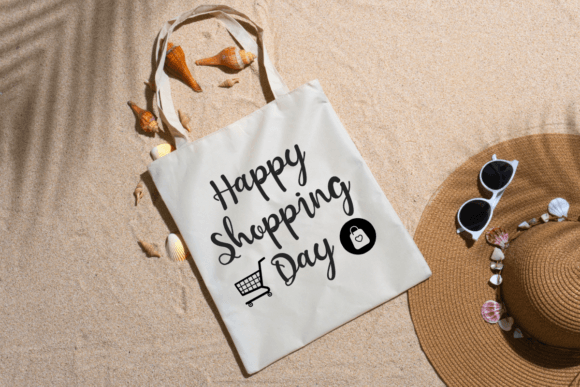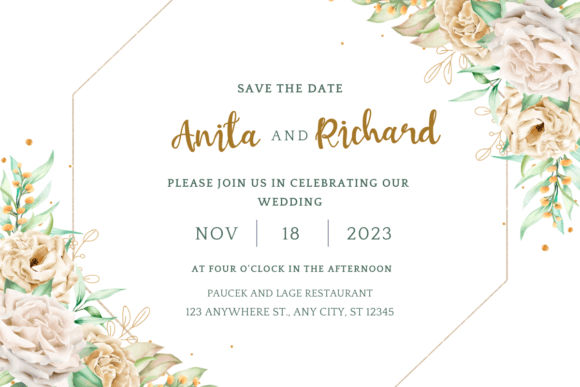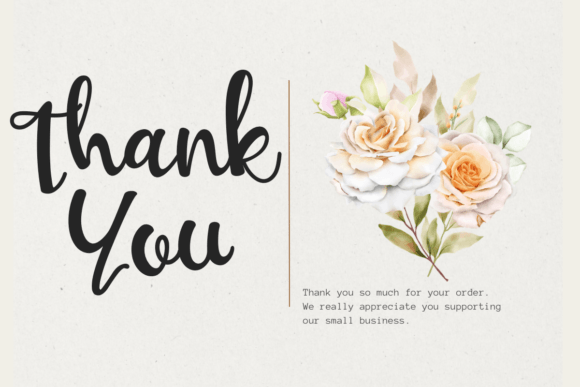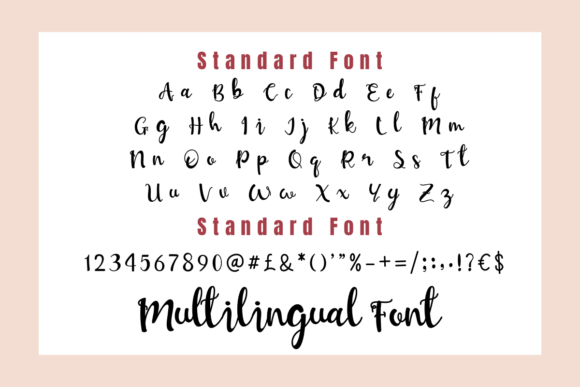
Introduction to Magic Chocolate Font
Remember the moment when you stumbled upon the perfect font for your design project? It’s that feeling of excitement and relief when everything comes together in perfect harmony. For designers, finding the right font can make all the difference between a good design and a great one. And, we’re thrilled to introduce you to the “Magic Chocolate Font”, a delightful handwritten font that’s sure to add a touch of magic to your creative projects.
This charming font is designed to capture the essence of creativity and imagination, making it an ideal choice for designers who want to bring excitement and personality to their work. Whether you’re creating invitations, greeting cards, or branding materials, “Magic Chocolate Font” will infuse your text with a sense of wonder and joy. And, the best part? It’s available for free download, perfect for designers on a budget or those who want to experiment with a new design resource.
With its playful strokes and organic feel, “Magic Chocolate Font” is a high-quality design resource that’s perfect for designers who want to add a personal touch to their projects. Plus, with a transparent background, you can easily use it on any design project without worrying about compatibility issues.
Key Features of Magic Chocolate Font
- Unique and creative design for various projects, including typography and graphics.
- Unique chocolate-themed design elements, such as cocoa beans and chocolate bars, add a touch of whimsy to any creative project.
Honest Review: Magic Chocolate Font
I recently stumbled upon the Magic Chocolate Font and was excited to give it a try. As a designer, I’m always on the lookout for unique and high-quality design resources to add some creativity to my projects.
What works well with the Magic Chocolate Font is its playful and whimsical feel, which makes it perfect for creative projects that require a touch of magic. The font is highly customizable, allowing me to adjust the size, color, and even add some special effects to make it stand out. The transparent background option is also a great feature, as it gives me the flexibility to layer it over any image or background.
Here are some of the key features that I like about the Magic Chocolate Font:
- High quality and crisp font
- Customizable size and color
- Perfect for creative projects and design resources
⚠️ One limitation I noticed is that the font is not suitable for formal or professional projects, as it has a somewhat childish and playful tone. Additionally, the font may not be as versatile as other fonts in terms of its usage.